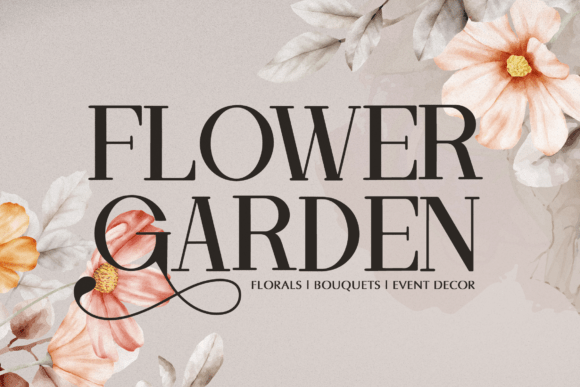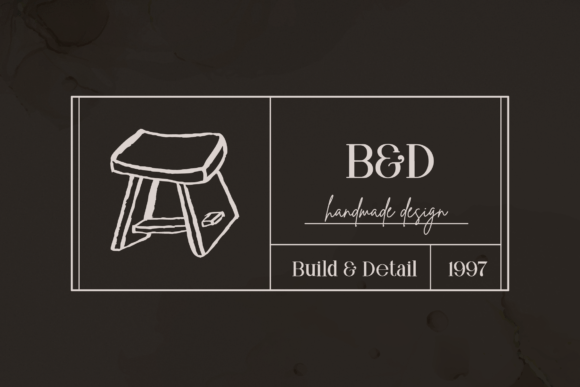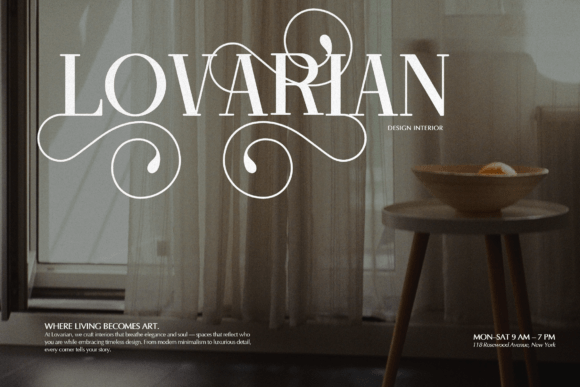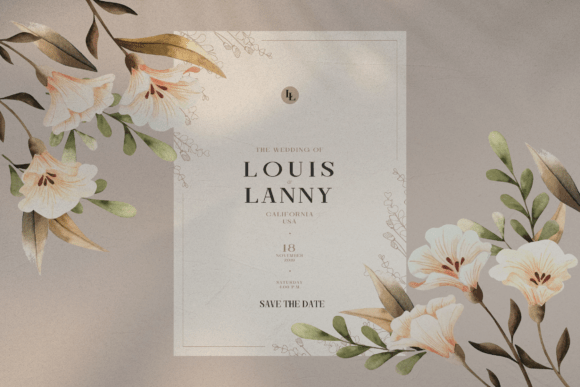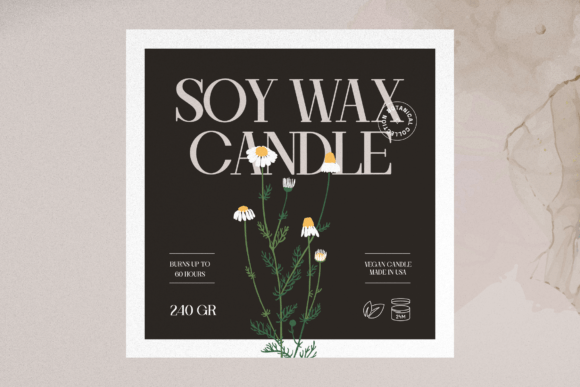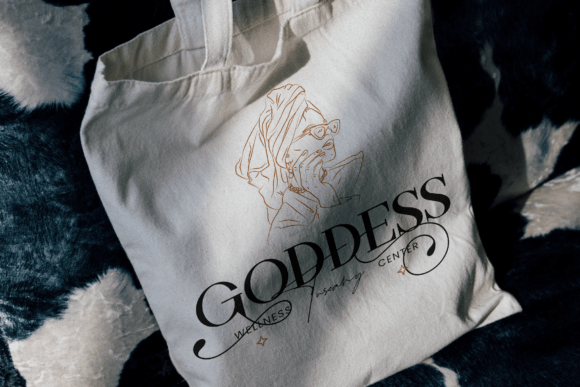
Introduction to Ronale Classic Font
As a designer, there’s nothing quite like the thrill of bringing a creative vision to life. You’ve poured hours into crafting the perfect concept, and now it’s time to add the finishing touches – the typography that will elevate your design from good to great. That’s where the Ronale Classic Font comes in, a versatile and stylish typeface that’s about to become your new go-to design resource.
Whether you’re working on a logo, branding materials, or anything in between, this high-quality font is the perfect addition to your creative project. With its distinctive handmade serif charm, the Ronale Classic Font adds a touch of sophistication to any design. And the best part? It’s fully accessible, with PUA-encoded characters that can be customized without the need for additional design software – making it a seamless and effortless experience.
Key Features of Ronale Classic Font
- Unique, hand-drawn design with a touch of elegance, perfect for creative projects.
- Perfect for use in logos, branding, invitations, and other design elements where a classic touch is desired.
Honest Review: Ronale Classic Font
As a designer, I’m always on the lookout for high-quality design resources to elevate my creative projects. The Ronale Classic Font is a gem that caught my attention, and I’m excited to share my honest review with you.
- ✨ Beautifully crafted letters with a classic touch, perfect for vintage-inspired designs
- ✨ High-quality font with a transparent background, making it easy to use on any design surface
- ⚠️ Limited font styles and weights, which may not be suitable for all design projects
- ⚠️ May require some adjustments to achieve the perfect spacing and alignment
Overall, I’m impressed with the Ronale Classic Font. It’s a great design resource for designers who want to add a touch of classic elegance to their creative projects. With its high-quality design and transparent background, it’s definitely worth considering for your next project. Just be aware of the limitations mentioned above, and you’ll be all set for a great design experience.
Tips for Getting the Most Out of Ronale Classic Font
Experiment with different font sizes, colors, and styles to create unique and creative designs. Use the font in combination with other design elements, such as images and shapes, to add depth and interest to your project. Consider using the font in conjunction with other design resources, such as graphics and templates, to create a cohesive and professional-looking design.
Common Use Cases for Ronale Classic Font
The Ronale Classic Font is suitable for a wide range of creative projects, including branding, marketing materials, and web design. It can also be used in educational and professional presentations, as well as in personal projects, such as art and photography. The font’s high-quality and transparent background make it an ideal choice for designers and artists who want to create visually appealing and creative projects.